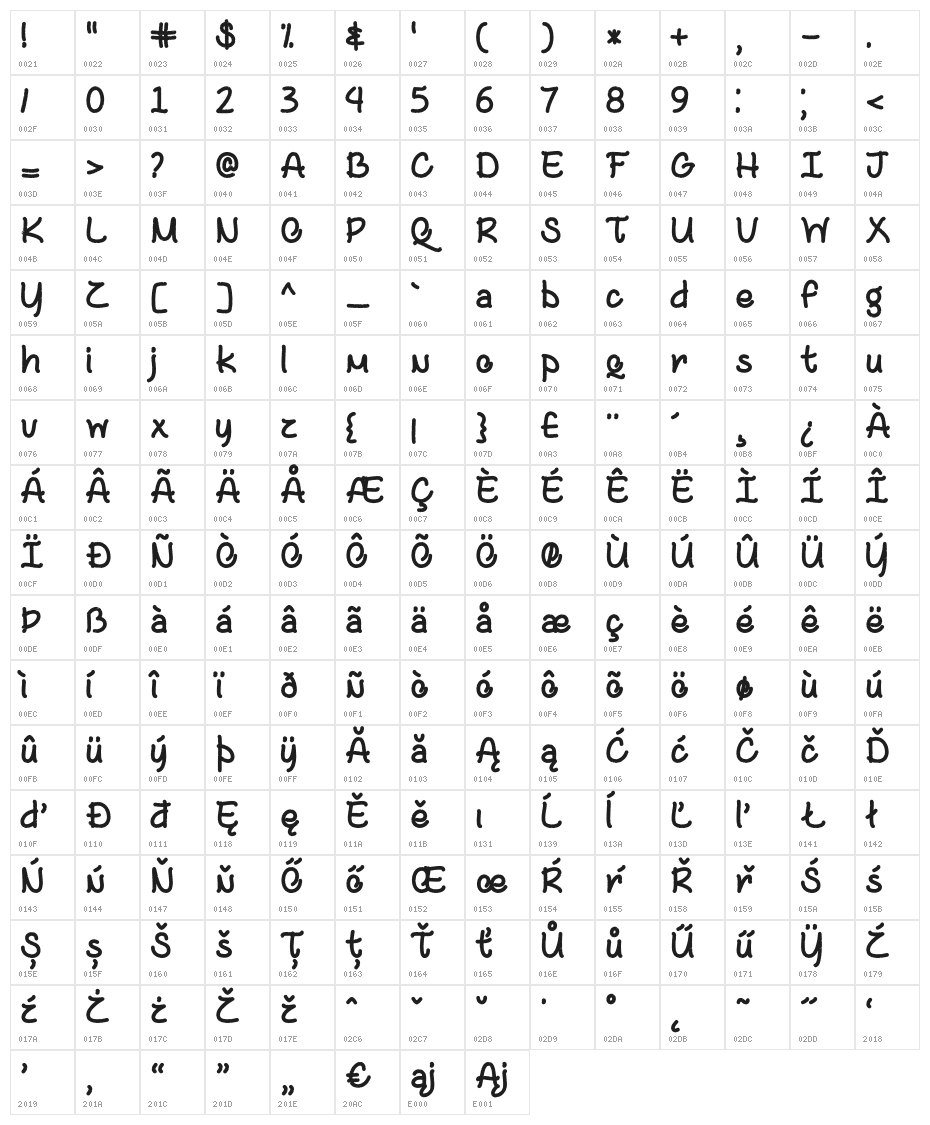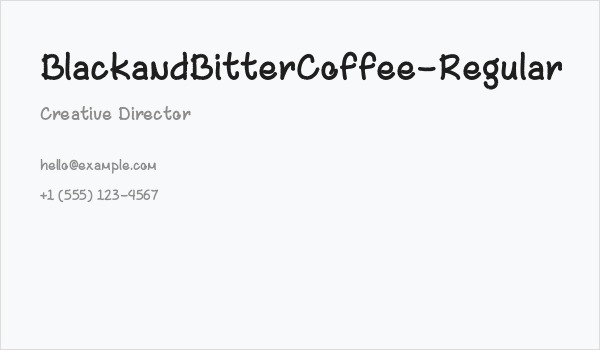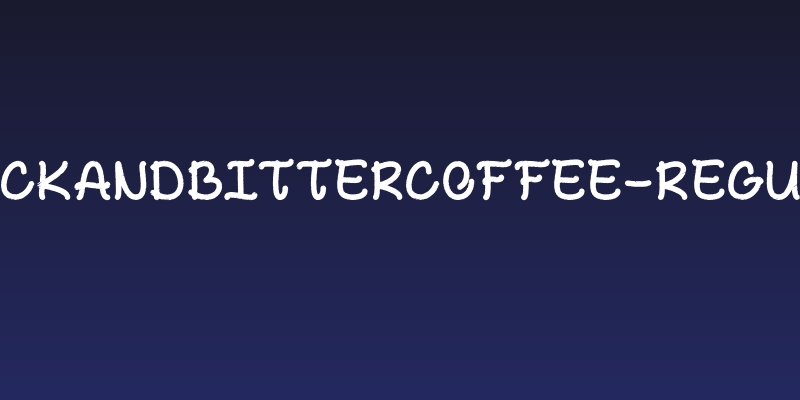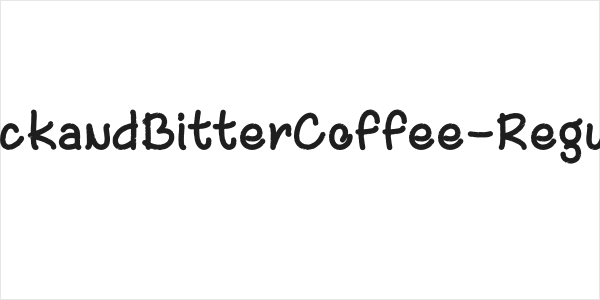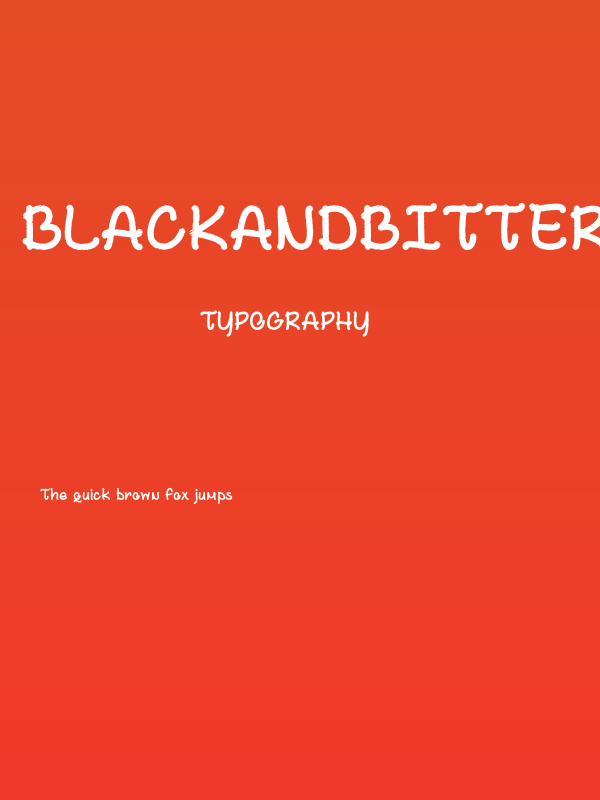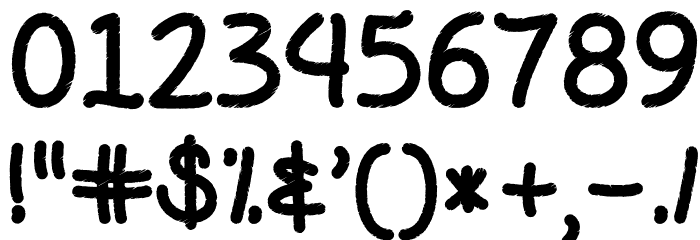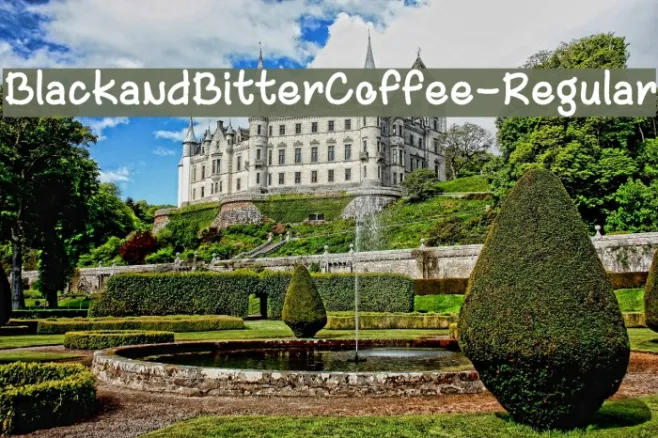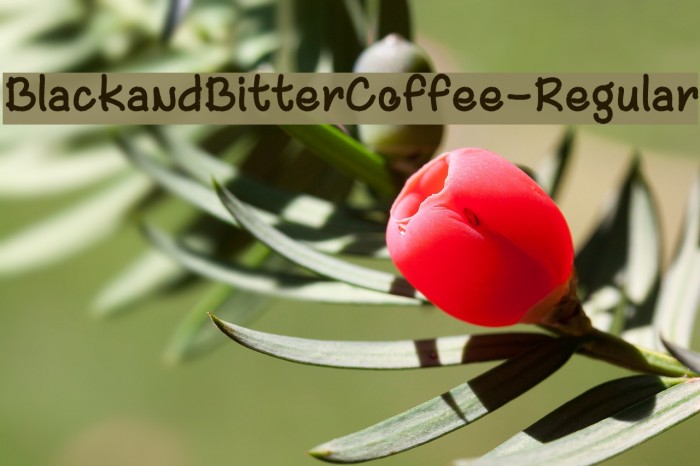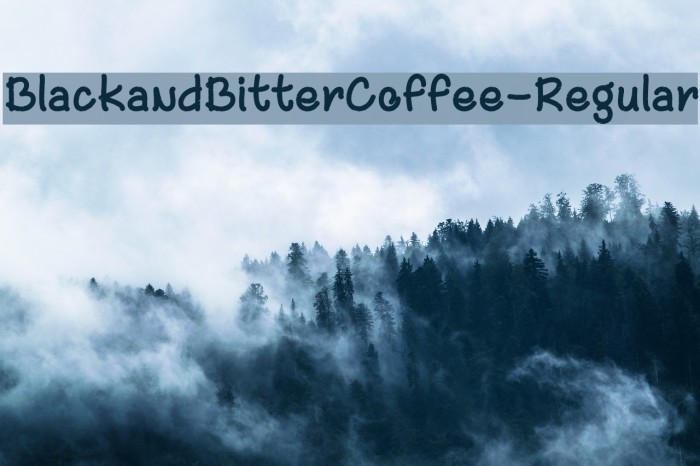
BlackandBitterCoffee-Regular Font
BlackandBitterCoffee-Regular Description
This font features a bold, handwritten style with a playful and casual appearance. The characters are rounded and slightly irregular, giving it a friendly and approachable feel. The strokes are thick and consistent, providing a strong presence on the page. The uppercase and lowercase letters maintain a uniform style, while the numerals and special characters complement the overall design. This font is ideal for projects that require a personal touch or a sense of informality.
| Overall Style | Casual |
| Use Case | Headlines, Logos, Informal Text |
| Proposed Projects | Great for greeting cards, children's books, informal branding, and social media graphics. |